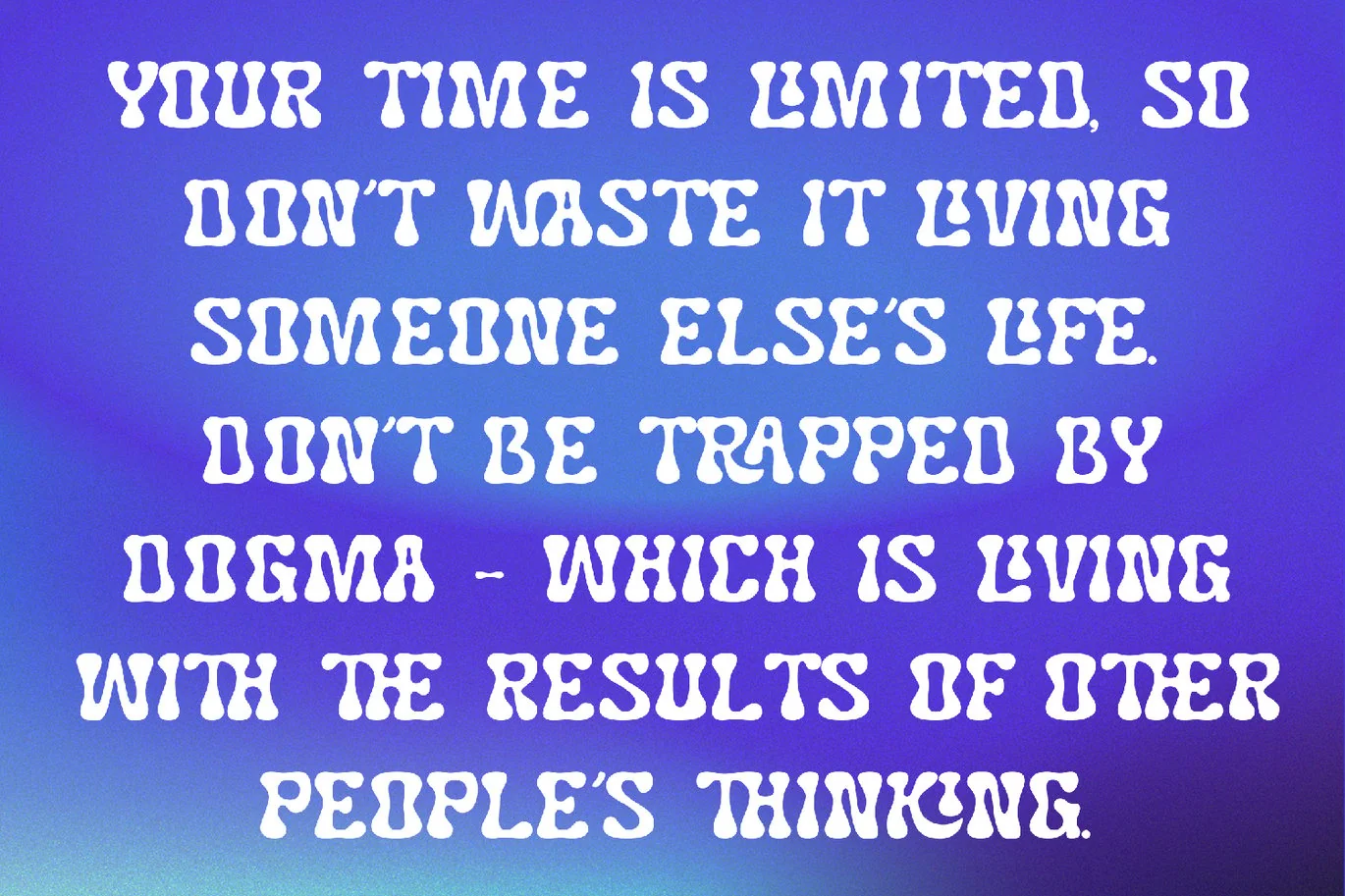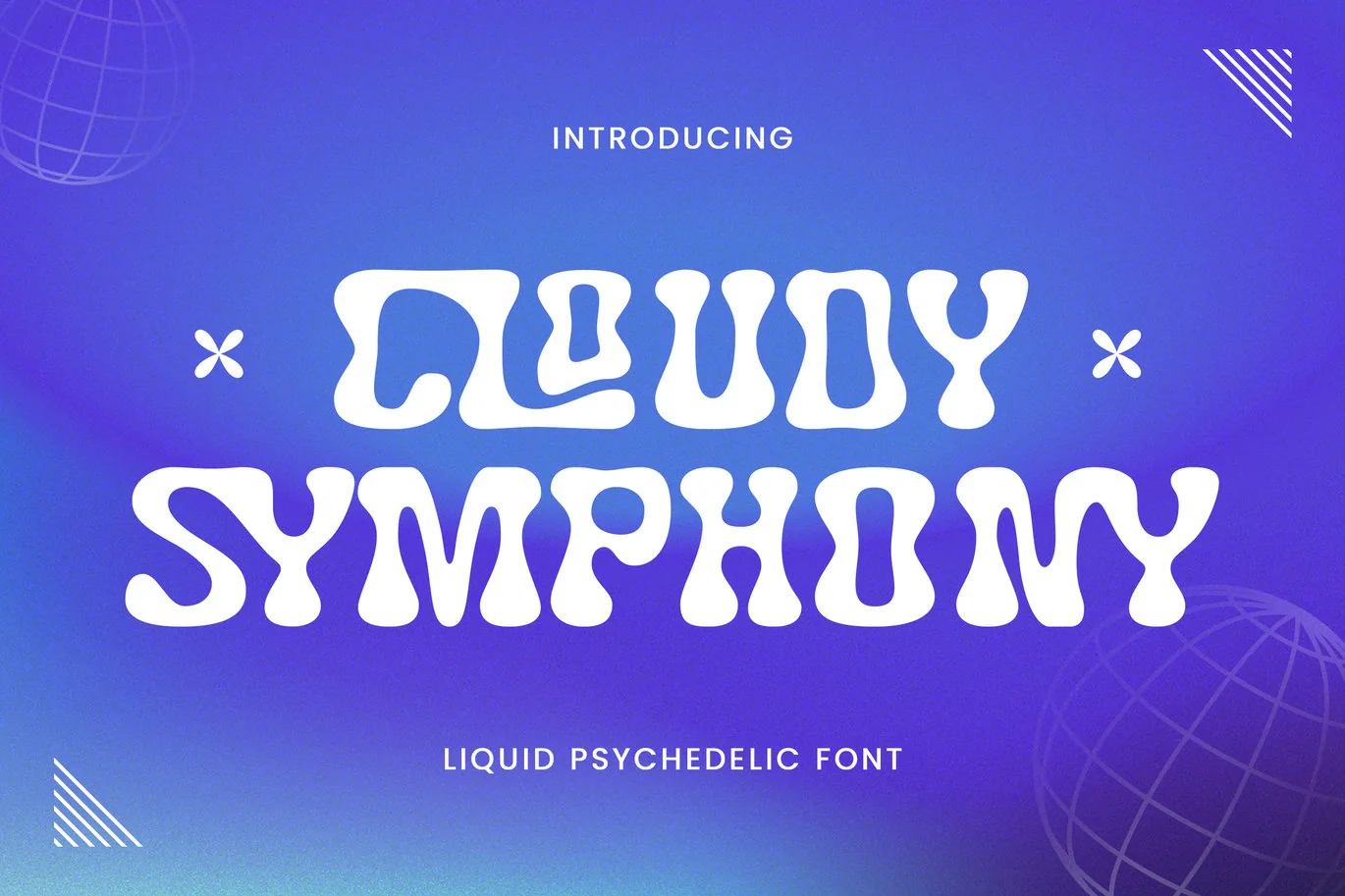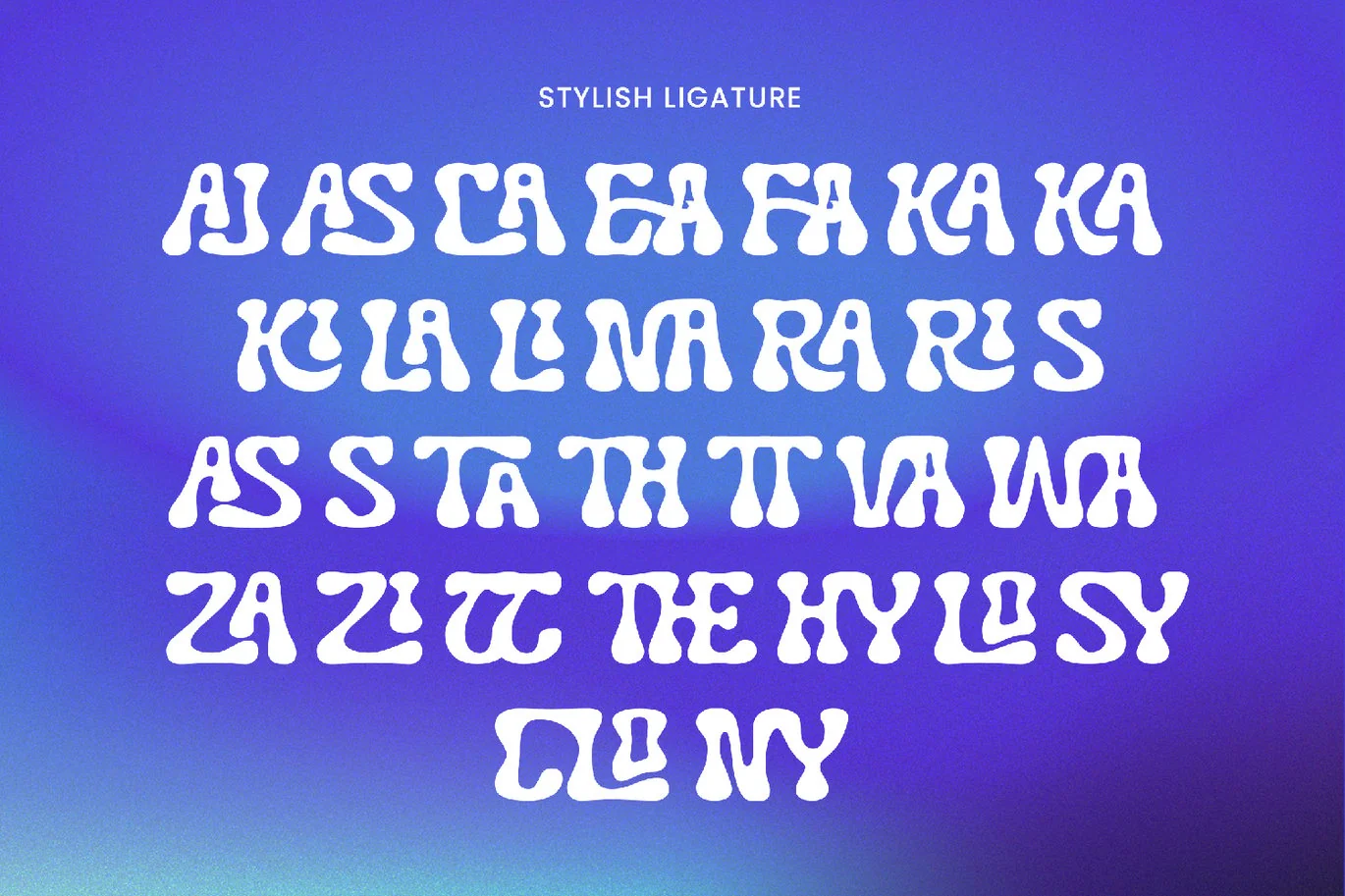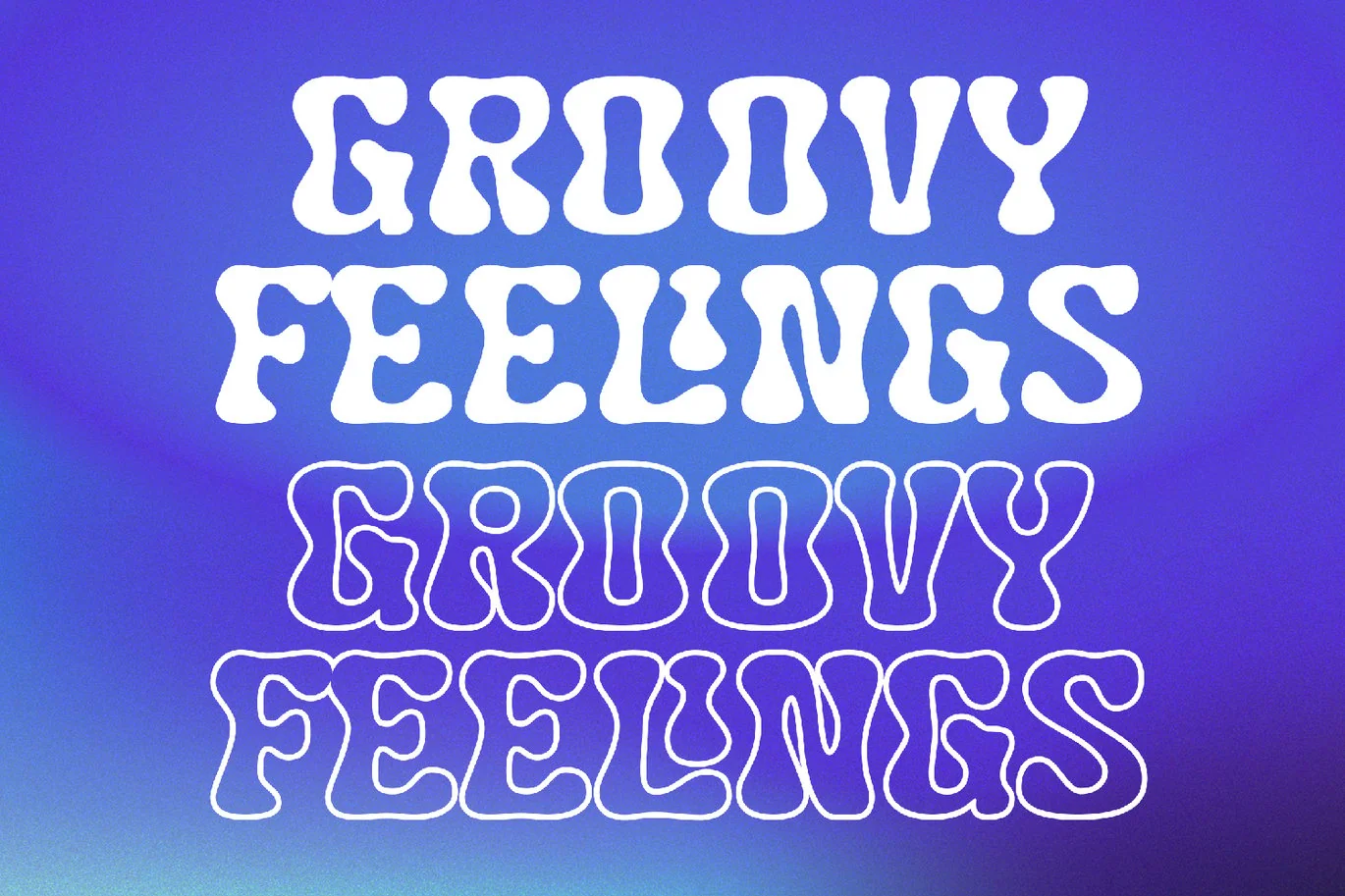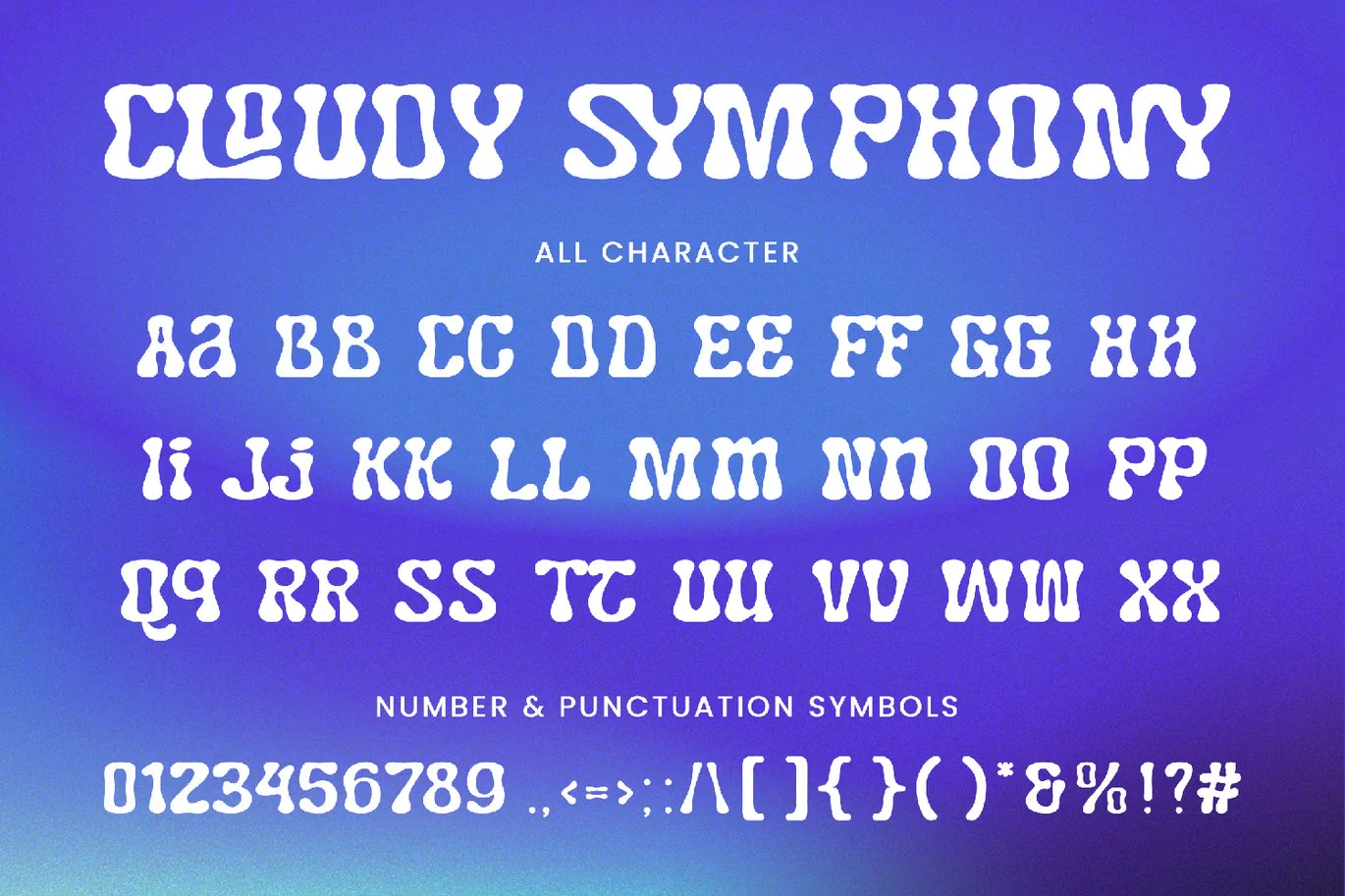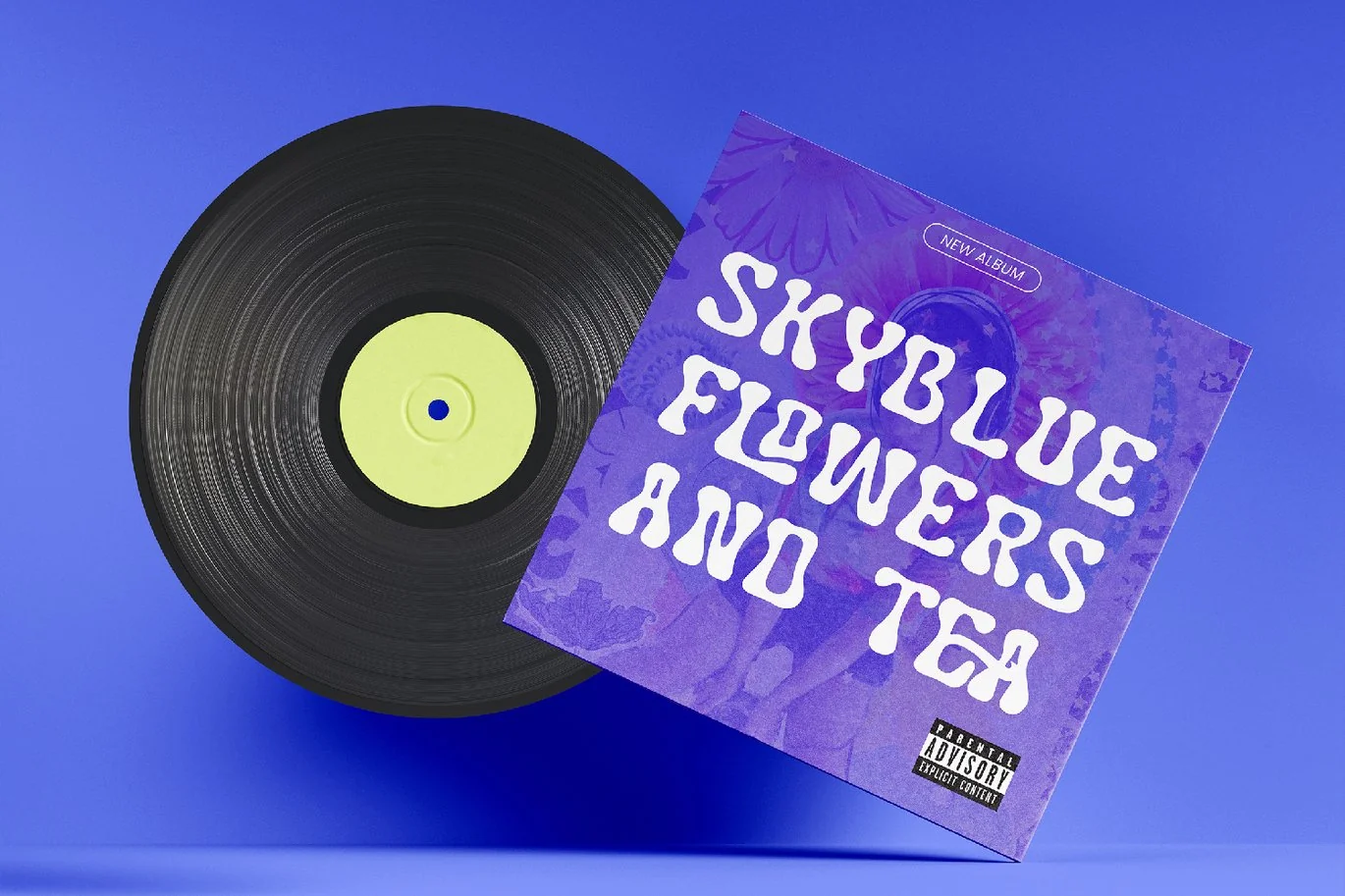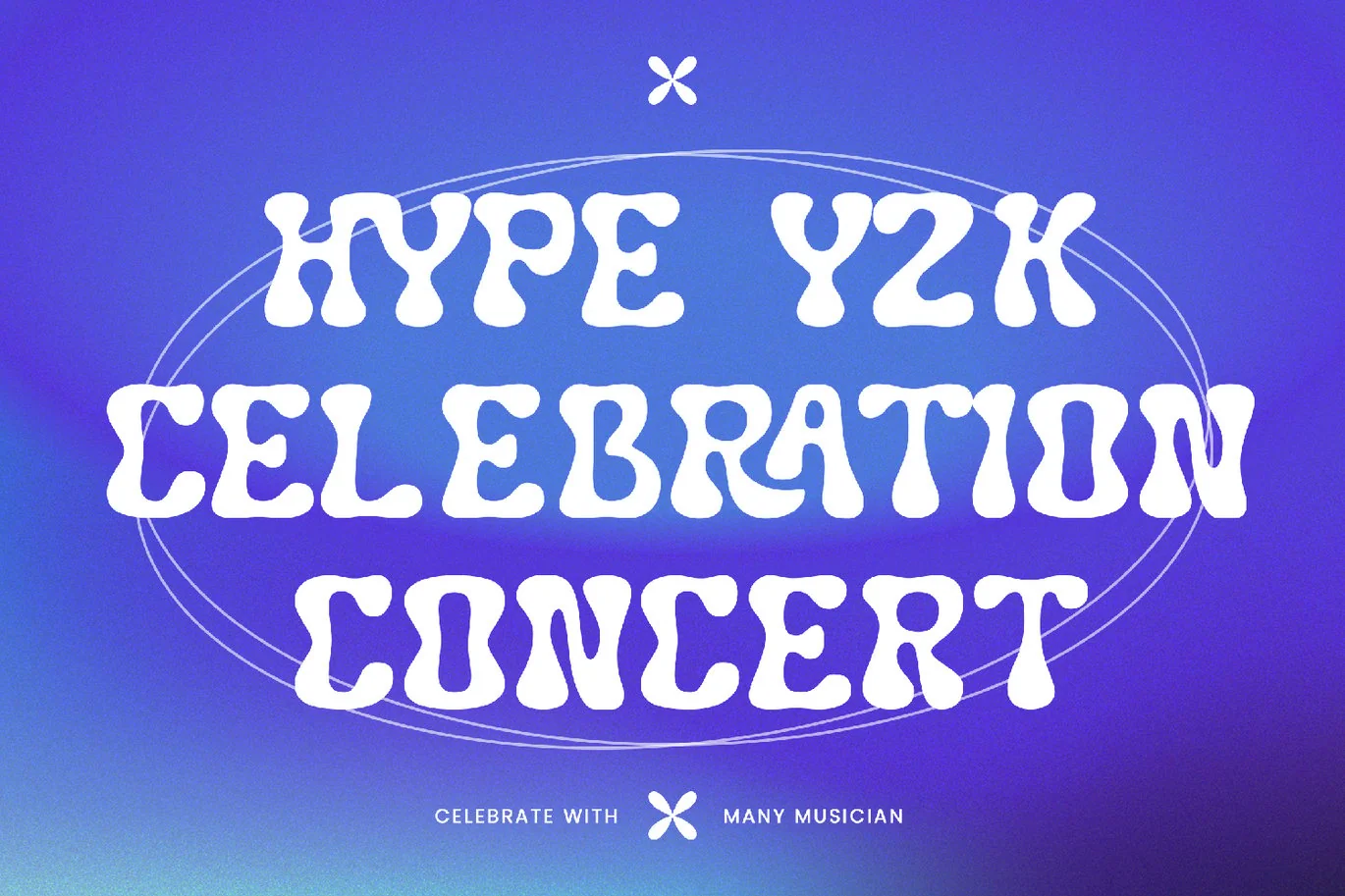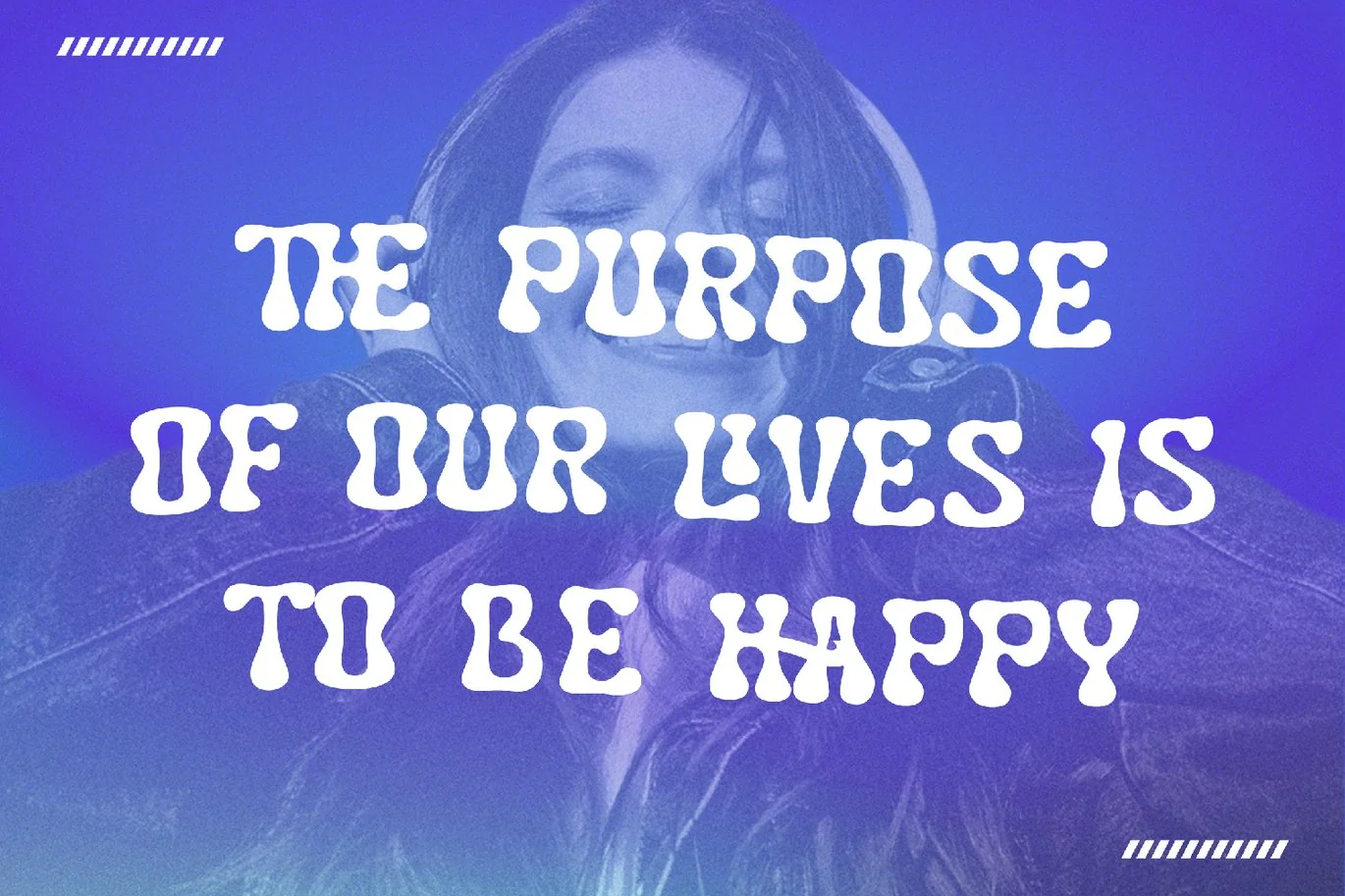
Cloudy Symphony – Psychedelic Font
Cloudy Symphony – Psychedelic Font contains a lowercase, uppercase, symbol, and also supports multi-language. There’s a lot of ligature in this font. Cloudy Symphony – Psychedelic Font also comes with ligatures, stylistic alternates, and many more.
this font is suitable for fashion, branding, catalog, and other designs that you want.